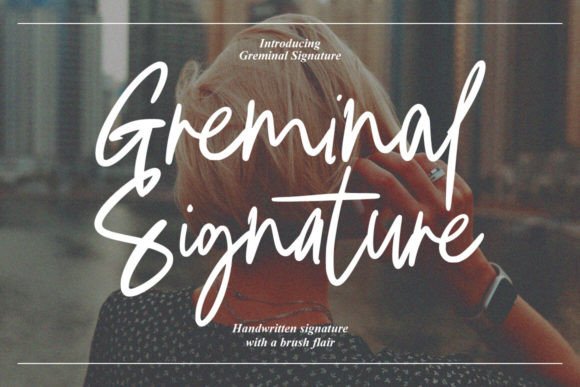
Unleash your creativity with Greminal Signature Font, a script font that dances and flows across your screen with grace and elegance. Its handmade signature style and decorative characters bring a touch of whimsy and charm to any project, making it the perfect choice for invitations, greeting cards, branding materials, business cards, quotes, posters, and more.
With over 250 glyphs, Greminal Signature Font offers a wide range of creative possibilities. The alternative characters are neatly organized into OpenType features, including Swash, Stylistic Sets, Stylistic Alternates, and Ligature, giving you the freedom to customize your designs with ease.
Step into a world of captivating designs with Greminal Signature Font. Its enchanting style and versatile features will transform your projects into works of art, leaving a lasting impression on your audience. Embrace the beauty of hand-crafted lettering and let your imagination run wild.